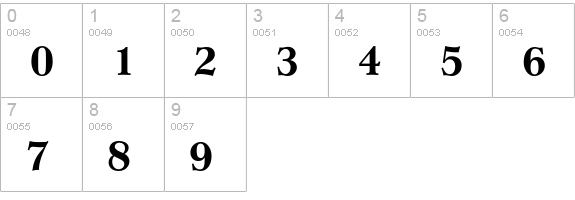
Cremona BQ Bold is a strong, high-contrast variant in the Cremona typeface family \xE2\x80\x94 well suited to headlines, attention-grabbing titles, and strong calls-to-action.
Cremona BQ Bold font is a striking and modern typeface that exudes confidence and sophistication. Its bold and commanding presence makes it perfect for headlines, titles, and branding materials. The strong and clean lines of this font make it versatile for a wide range of design projects, from posters to logos to packaging. What makes Cremona BQ Bold font even more appealing is that it is free to download at FontsMarket.com. This means you can easily access this premium quality font without any cost, making it an excellent choice for designers looking for a high-impact typeface without breaking the bank. With its timeless aesthetic and bold personality, Cremona BQ Bold font is sure to make a statement in any design project.